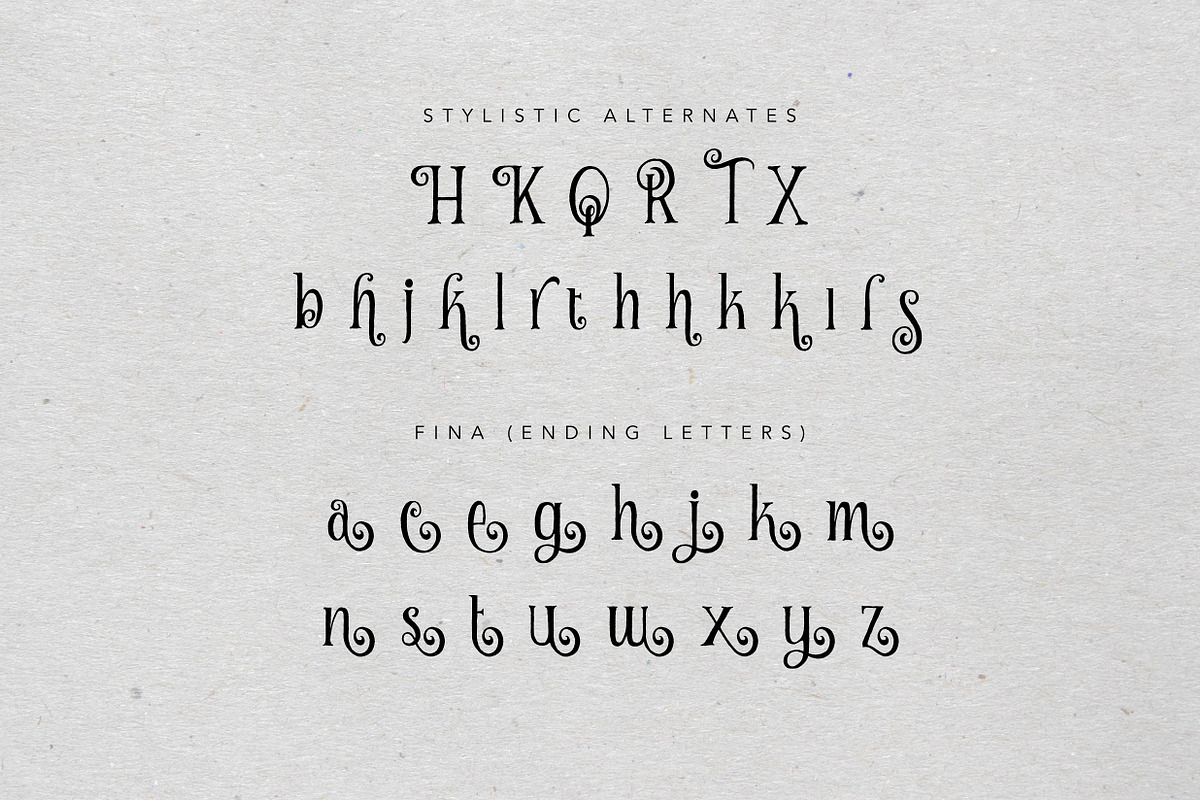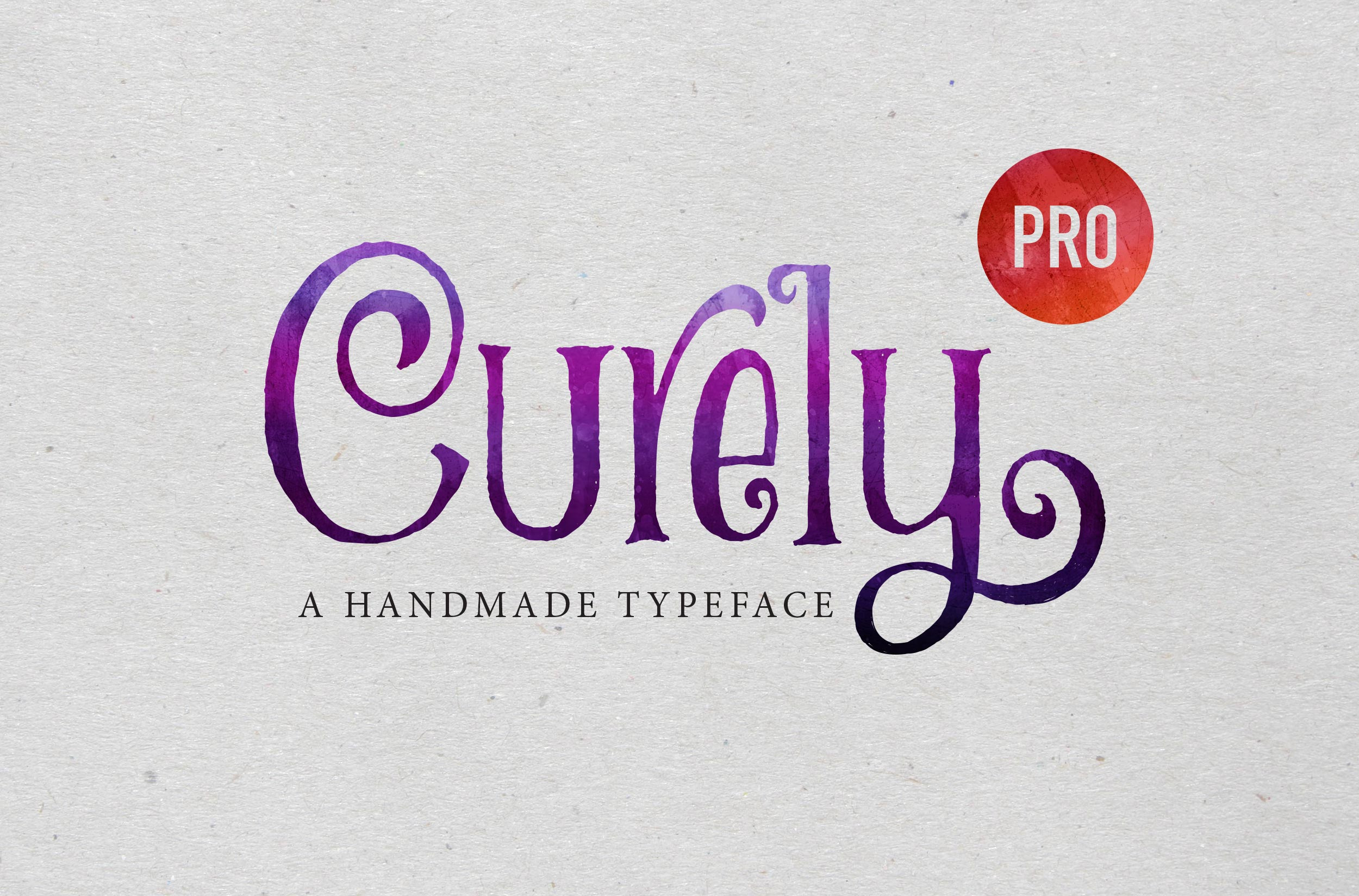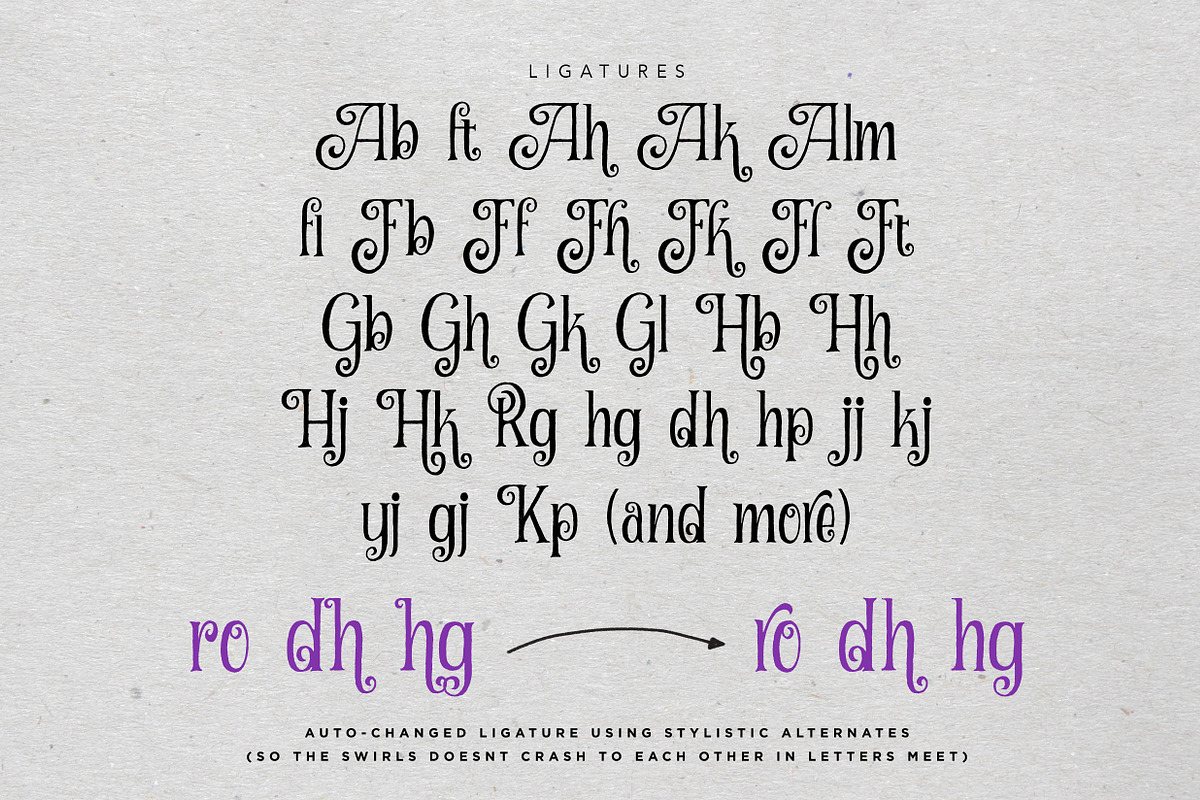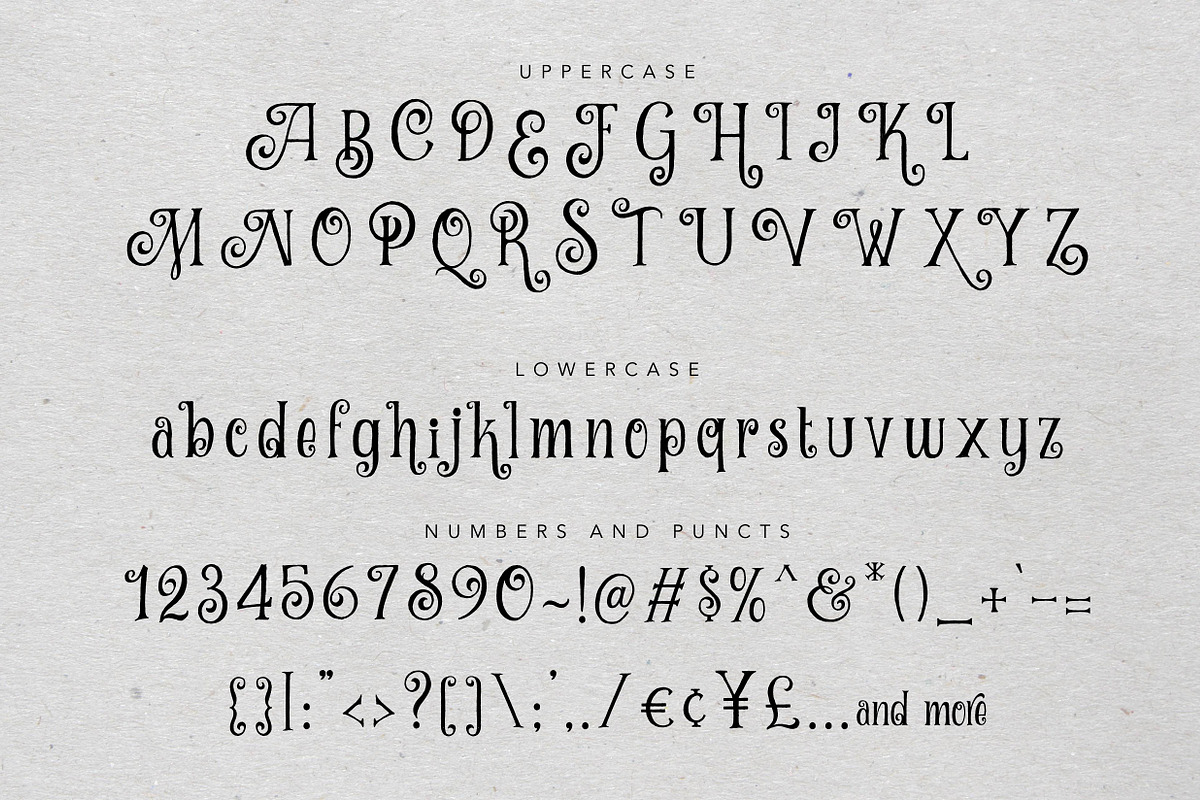
Curely Pro fancy cute lettering font
Start from the idea of our free font, Curely, which has hit the milestone - a 70K project views on Behance and a thousand times more download (still going). Now we came up with the Pro version of it. More complex, more features, and absolutely more playful.
So, please welcome, Curely Pro. A Versatile casual handmade decorative lettering typeface. Still inspired from the girly things and cuteness overload in every letters. Perfectly fit for your cute, sweet, lovely, and casual branding or logo project. Or any design stuff that need a lovely cute touch on it, let the Curely Pro smooch it all the way baby!
Contains Uppercase, Lowercase, Numbers & Punctuations, Multilanguage Support, Stylistic Alternates, Fina (for end up your letters), and lots of Ligatures! Yay!